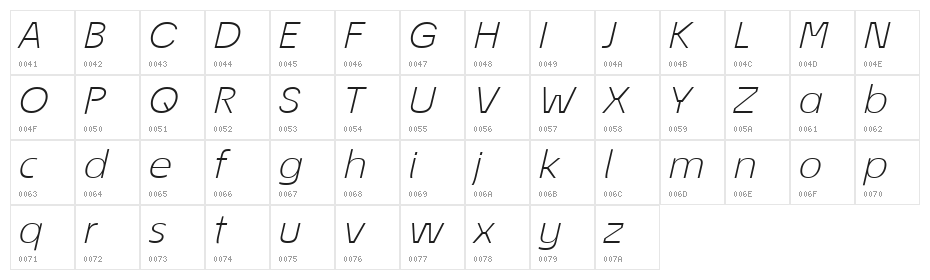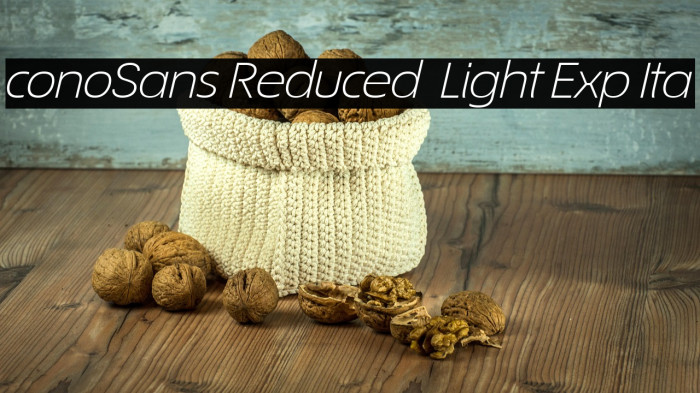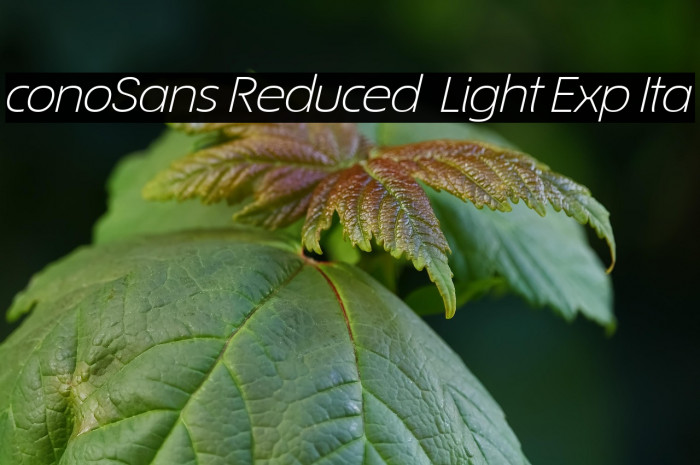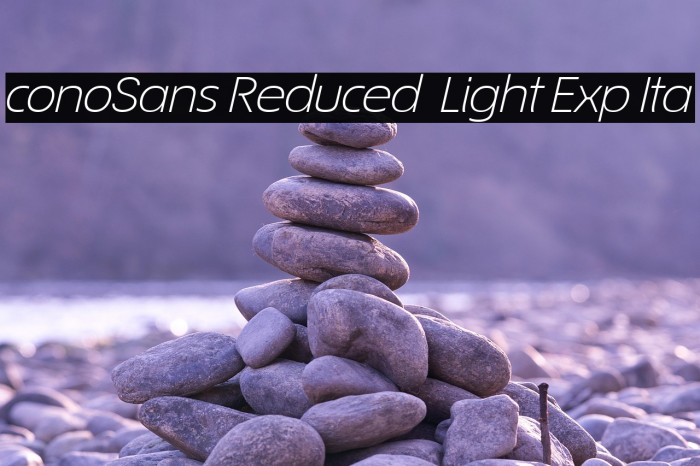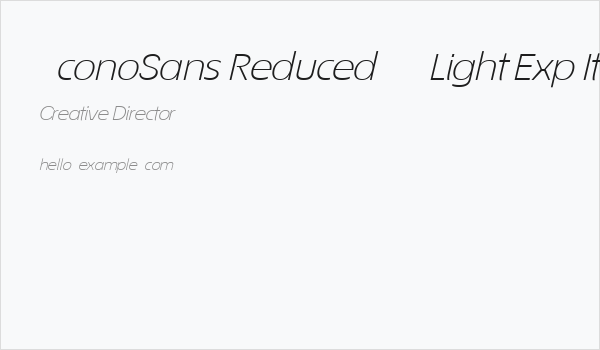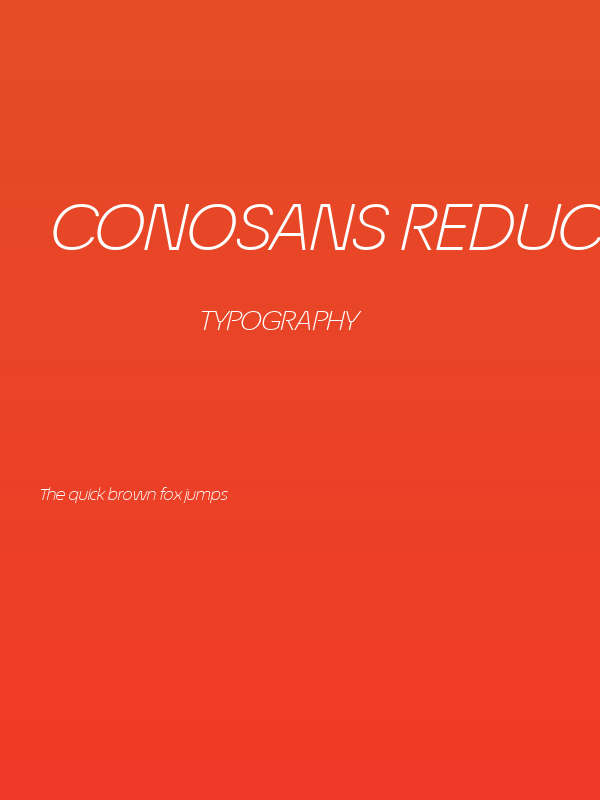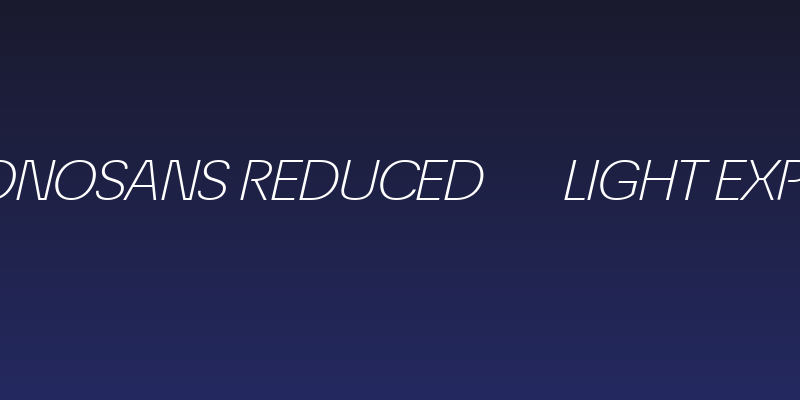
ÉconoSans Reduced 44 Light Exp Ita Font
ÉconoSans Reduced 44 Light Exp Ita Description
This font features a sleek and modern design with a light weight and expanded width. The characters are elegantly crafted with a subtle italic slant, giving it a dynamic and forward-moving appearance. The sans-serif style ensures clean lines and a minimalist aesthetic, making it suitable for contemporary design projects. The character spacing is wide, allowing for excellent readability and a spacious feel. The contrast in stroke thickness is low, maintaining a uniform look across all characters. This font is ideal for projects that require a modern and sophisticated touch.
| Proposed Projects | Ideal for branding, advertising, and editorial design where a modern and sophisticated look is desired. |